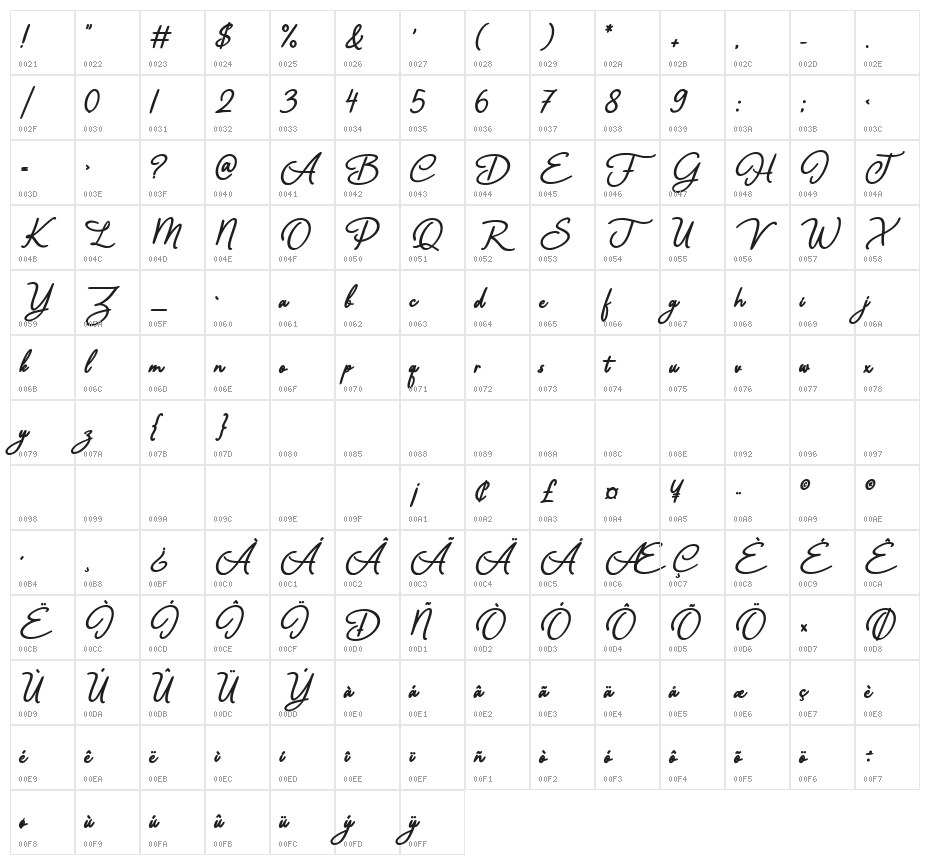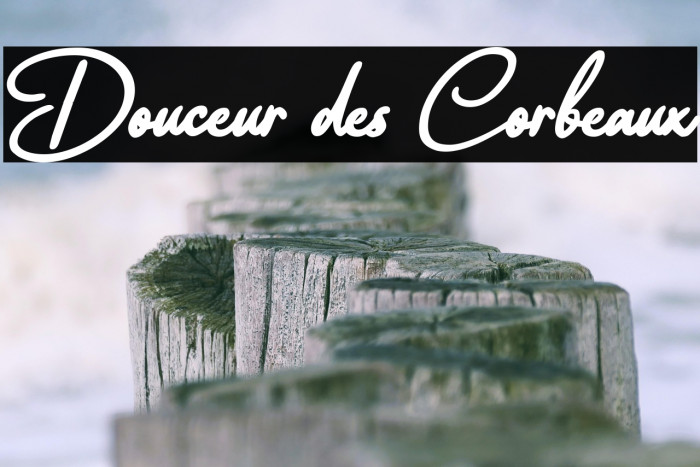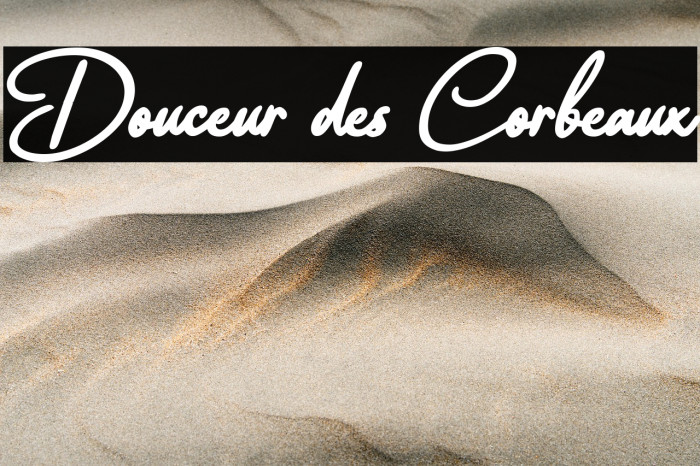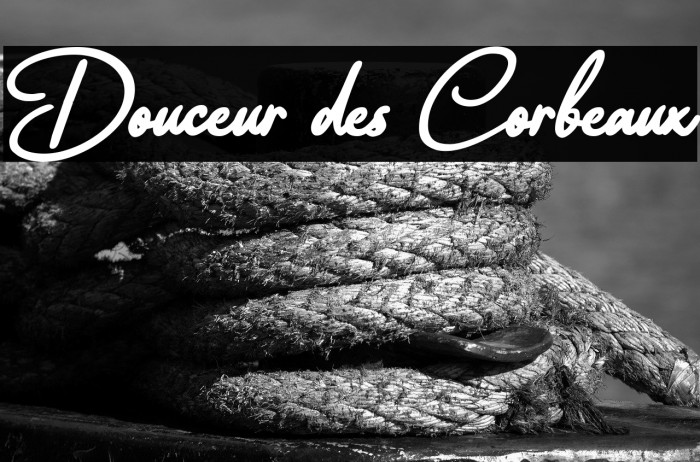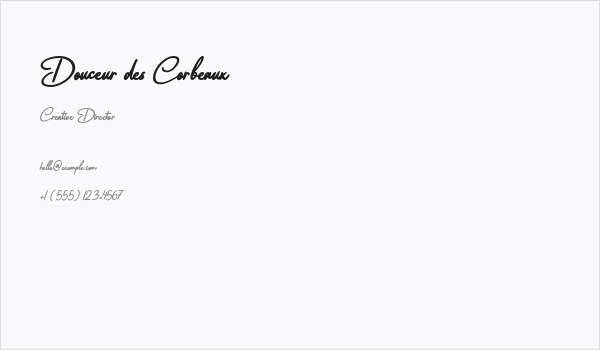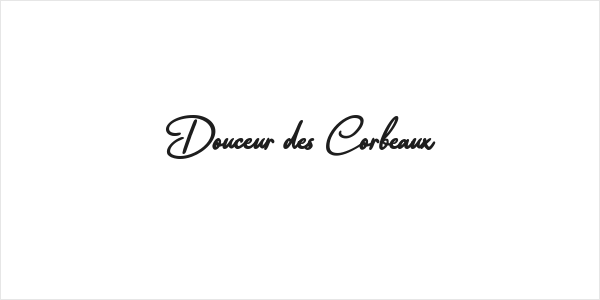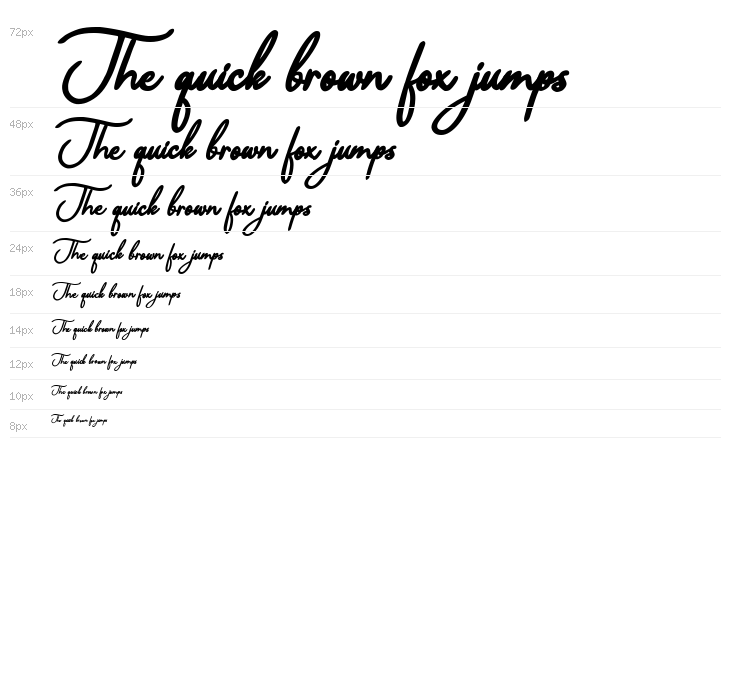
Douceur des Corbeaux Font
Douceur des Corbeaux Description
This font exudes a sense of elegance and fluidity, characterized by its cursive, handwritten style. The uppercase letters are gracefully connected, with a consistent slant that adds a dynamic flow to the text. The lowercase letters maintain this fluidity, with some characters featuring loops and swashes that enhance its decorative appeal. Numbers are clear and maintain the cursive style, ensuring readability while retaining the overall aesthetic. Special characters are thoughtfully designed to match the script, making them suitable for creative and expressive text compositions.
| Proposed Projects | Ideal for wedding invitations, greeting cards, personal branding, and artistic projects that require a touch of sophistication. |